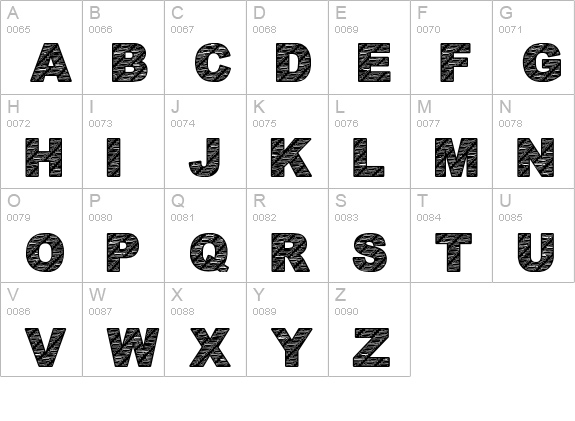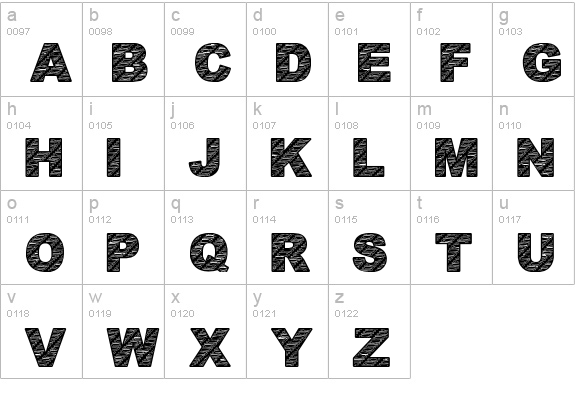
BatikFont1 Font Details
BatikFont1 is a beautifully designed font that captures the essence of traditional batik patterns. Its intricate details and unique style make it a perfect choice for projects that require a touch of elegance and cultural richness. This font combines modern design elements with a classic aesthetic, resulting in a versatile typeface that can be used for various purposes. The best part is that BatikFont1 is available for free download at FontsMarket.com. Whether you're working on a branding project, creating invitations, or designing social media graphics, this font will bring a touch of sophistication to your work. Embrace the beauty of batik art and add a touch of uniqueness to your designs with BatikFont1.